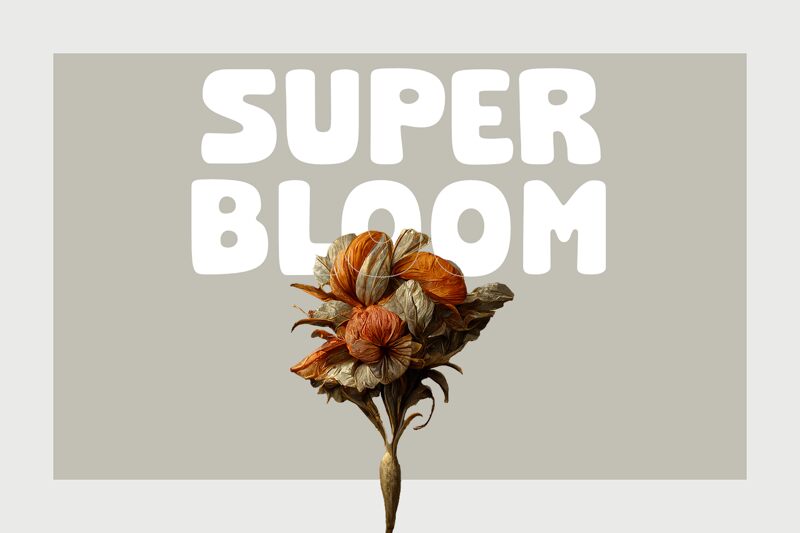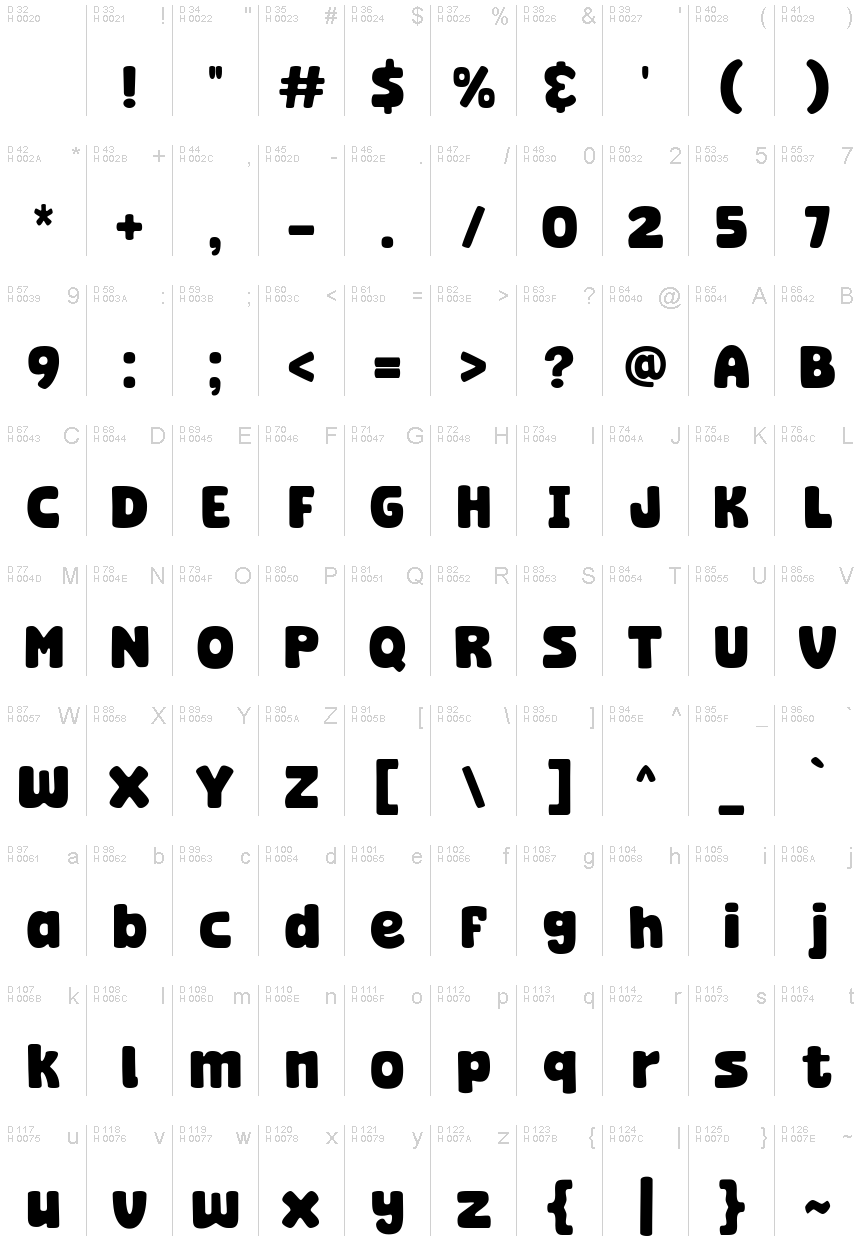
Super Bloom
Super Bloom brings an exuberant flair to the typographic world, courtesy of designer fsuarez913. This display font radiates with a cartoon style that effortlessly evokes the dynamic energy of comic books. Its bold character strokes command attention, making it a standout choice for headlines that require both impact and a sense of fun.
The playful curves and buoyant design elements reflect Super Bloom's suitability for projects aiming to convey excitement and creativity. It's particularly well-suited for children's media, animated content, casual game graphics, and any design space that benefits from a splash of youthful enthusiasm. With its lively charm, Super Bloom promises to infuse your work with an infectious spirit that captures imaginations and leaves a lasting impression.